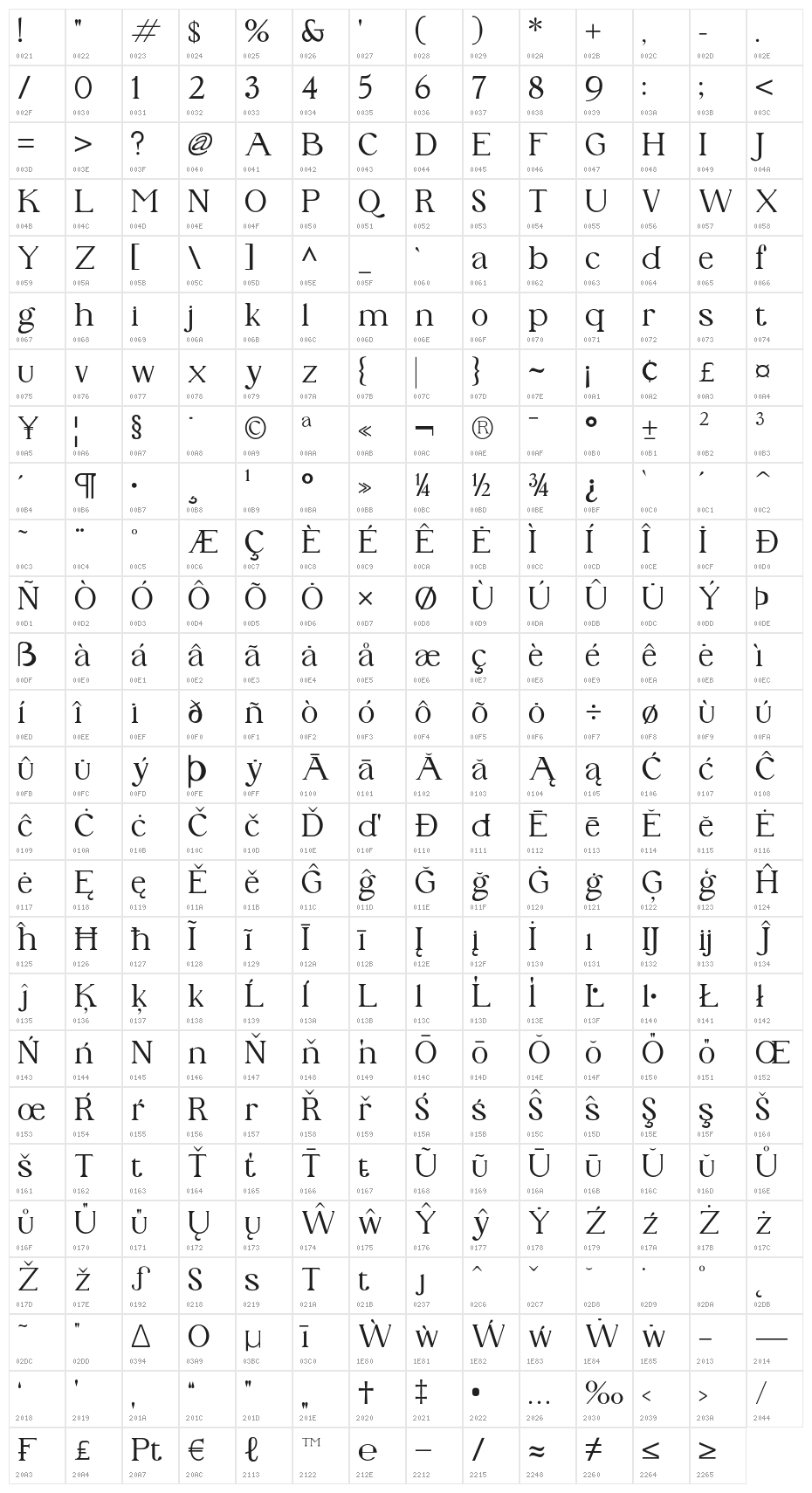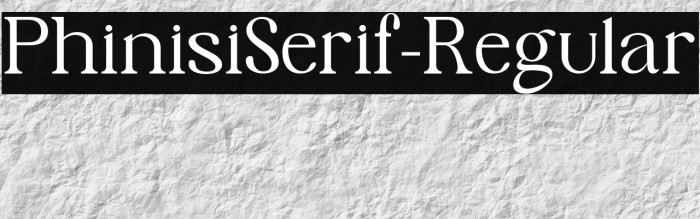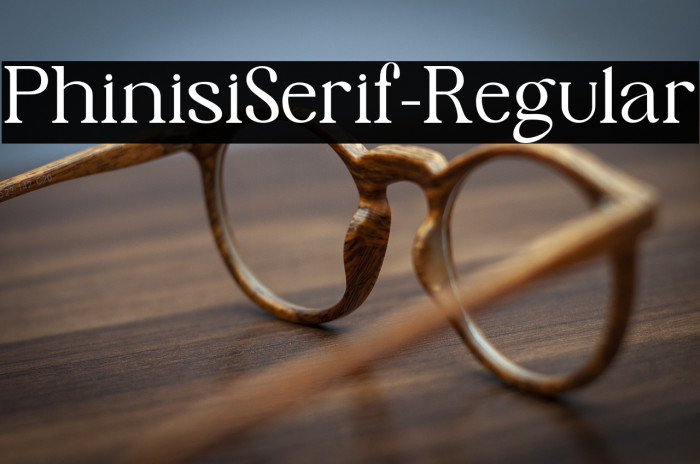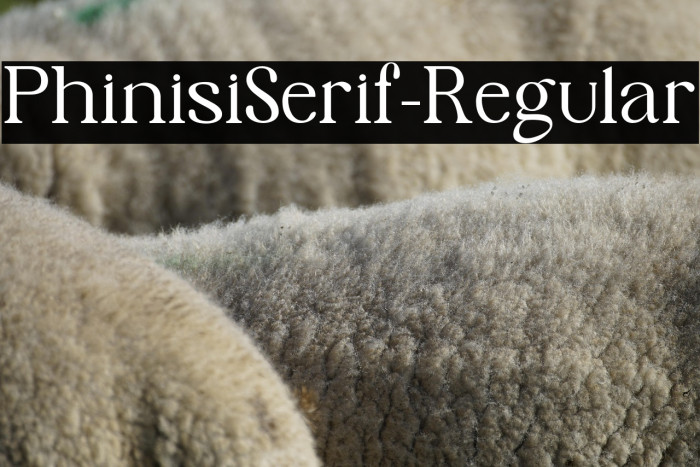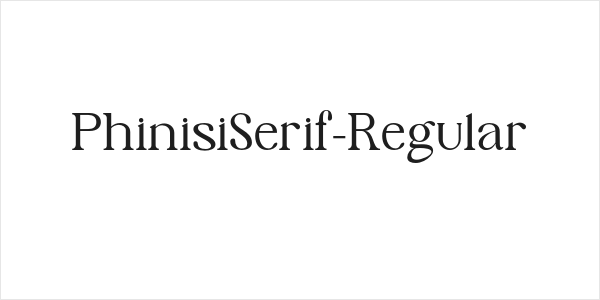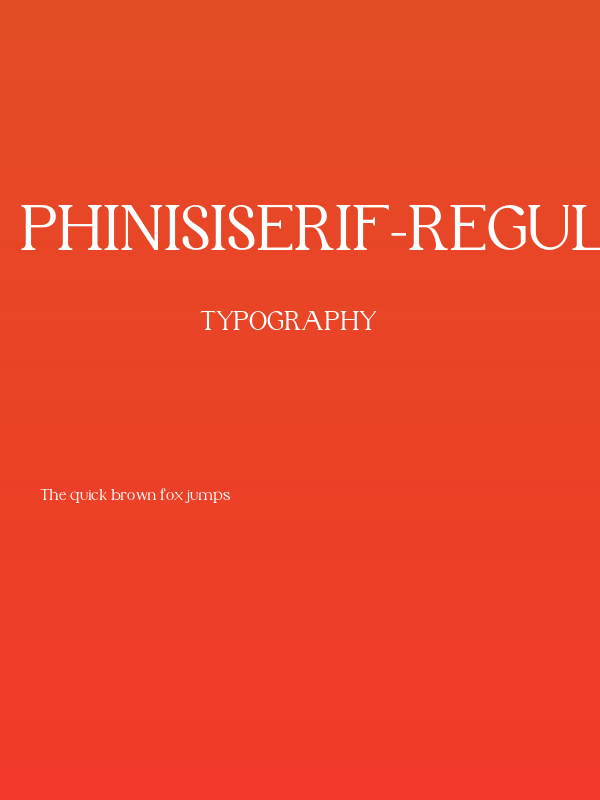
PhinisiSerif-Regular Font
PhinisiSerif-Regular Description
This serif typeface exudes a classic elegance with its refined and sophisticated design. The characters are well-proportioned, featuring subtle curves and sharp serifs that add a touch of formality. The uppercase letters are stately and commanding, while the lowercase letters maintain a graceful flow. The numerals are clear and distinct, ensuring readability. Special characters are designed with the same attention to detail, making them blend seamlessly with the rest of the typeface. This font is versatile, suitable for both digital and print media, and can elevate the aesthetic of any project it is applied to.
| Proposed Projects | Ideal for book covers, editorial design, branding, and formal invitations. |